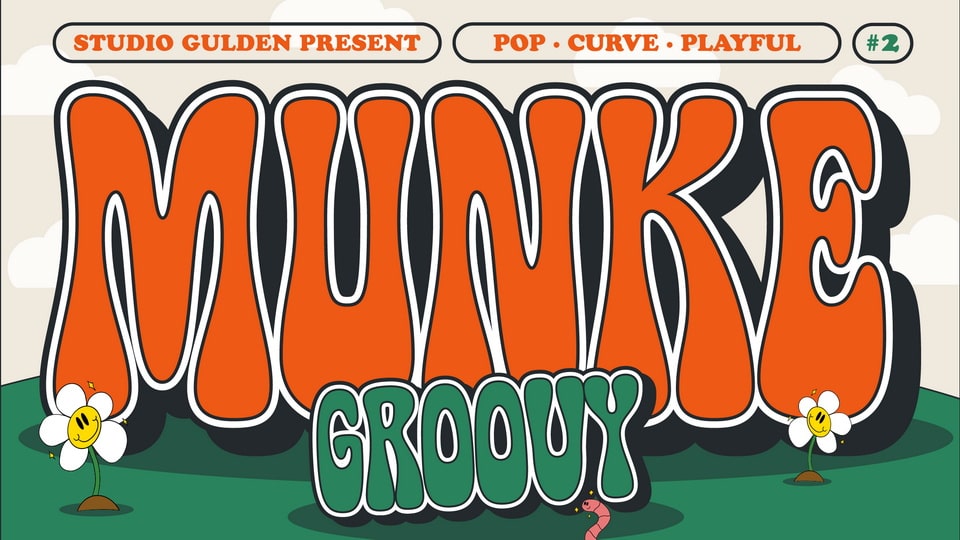
Jan 31, 2025DisplaySG Munke Font SG Munke is a groovy display font with a curvy base shape. Very suitable for you who want to make both vintage and modern pop designs. Include multilingual, uppercase, and lowercase. Font DetailsDesigned by: Studio GuldenWebsiteLicense: Free for personal use Download SG Munke FontFile size: 354.39 KBCreated: February 16, 2025Updated: February 16, 2025 Download Explore similar fonts Bonkurt Font Bagle Font Wobzy Groovy Font Sorean Font Konja Font July Bubble Font # Cool# Funky# Groovy# Playful# Retro# Vintage More fonts by Studio GuldenSG Scratter FontSG Mikura FontSG Larchett FontSG Rogibogy FontSG Ardio FontSG Gulden Display FontSG Takimon FontSG Noxvile Font